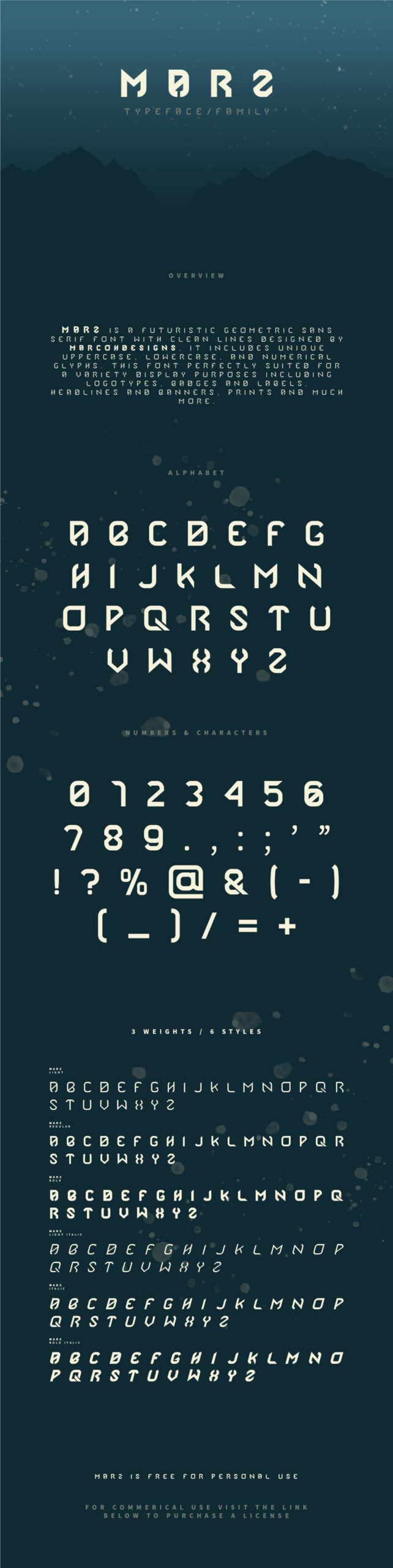
MARZ is a futuristic geometric sans serif font with clean lines designed by Marco H Designs. It includes unique uppercase, lowercase, and numerical glyphs. This font is perfectly suited for a variety of display purposes including logotypes, badges and labels, headlines and banners, prints and much more. Free for personal use! For the pro version please check here.